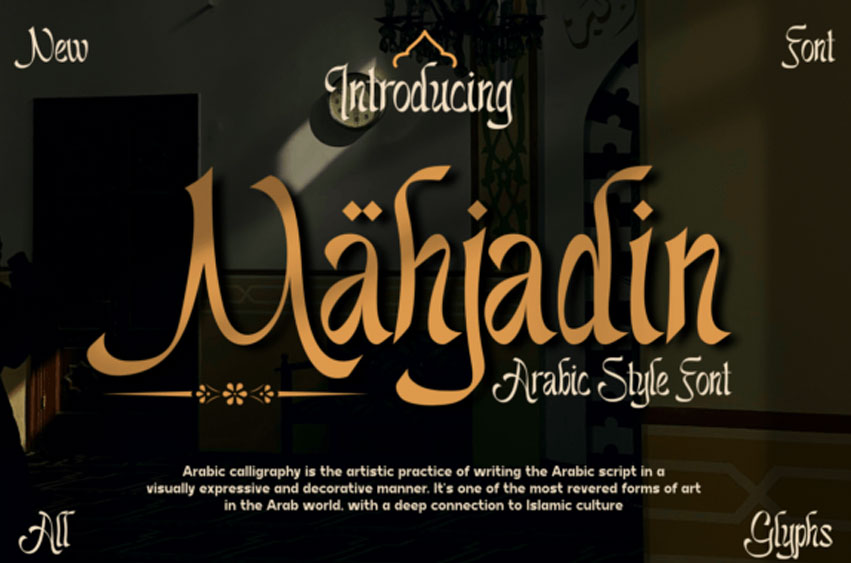
Mahjadin Font
Mahjadin Font is a stylish and incredibly elegant decorative font.
It looks stunning on wedding invitations, thank you cards, quotes, greeting cards, logos, business cards, and every other design that needs a handwritten touch.